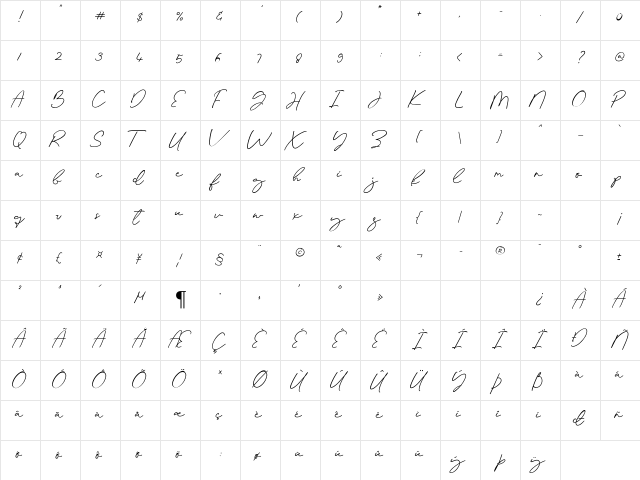
Palm Sugar Personal Use Regular
Design Context for Palm Sugar Personal Use Typeface
Palm Sugar Personal Use is a composed and adaptable typeface that performs quietly and consistently across a wide range of design contexts.